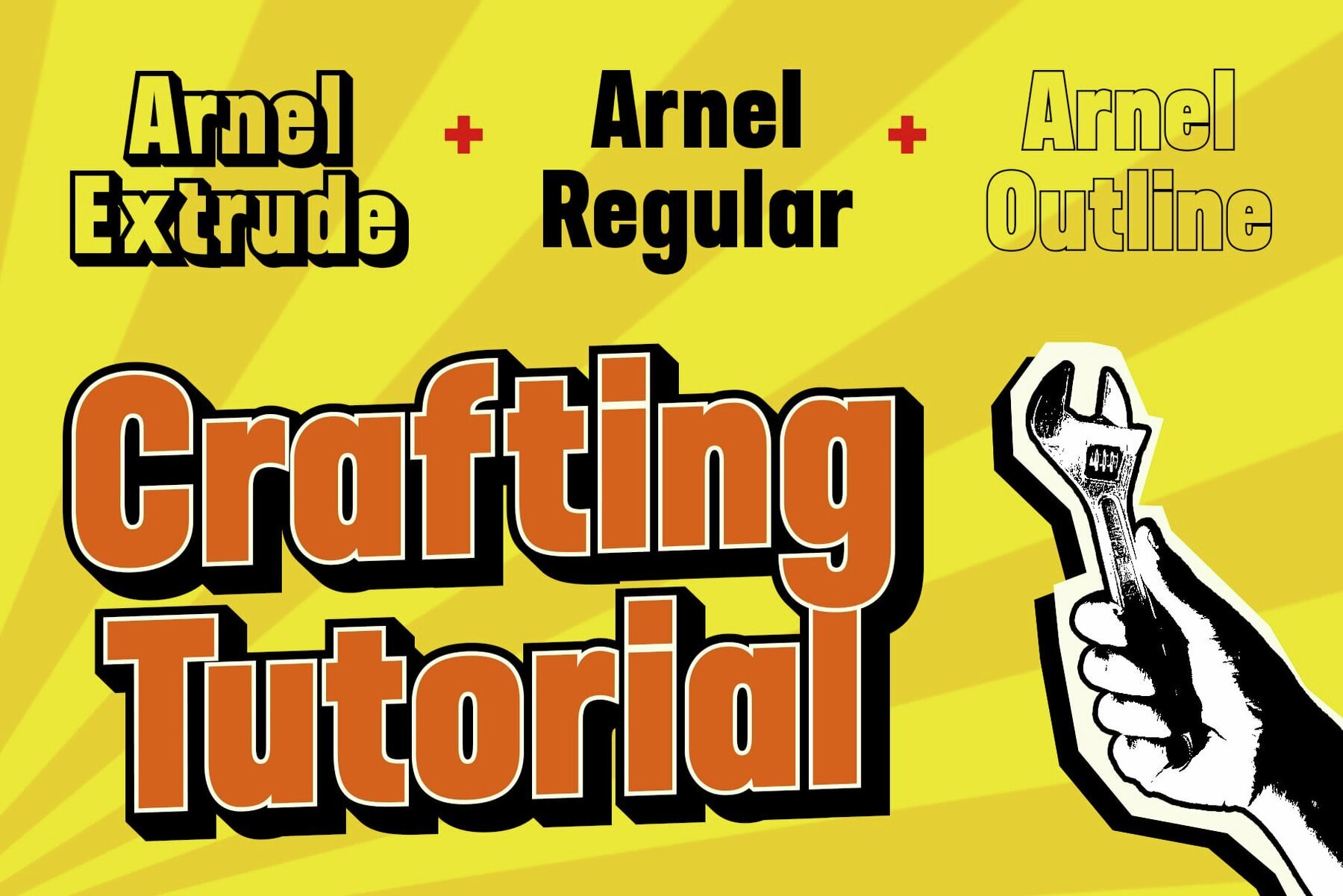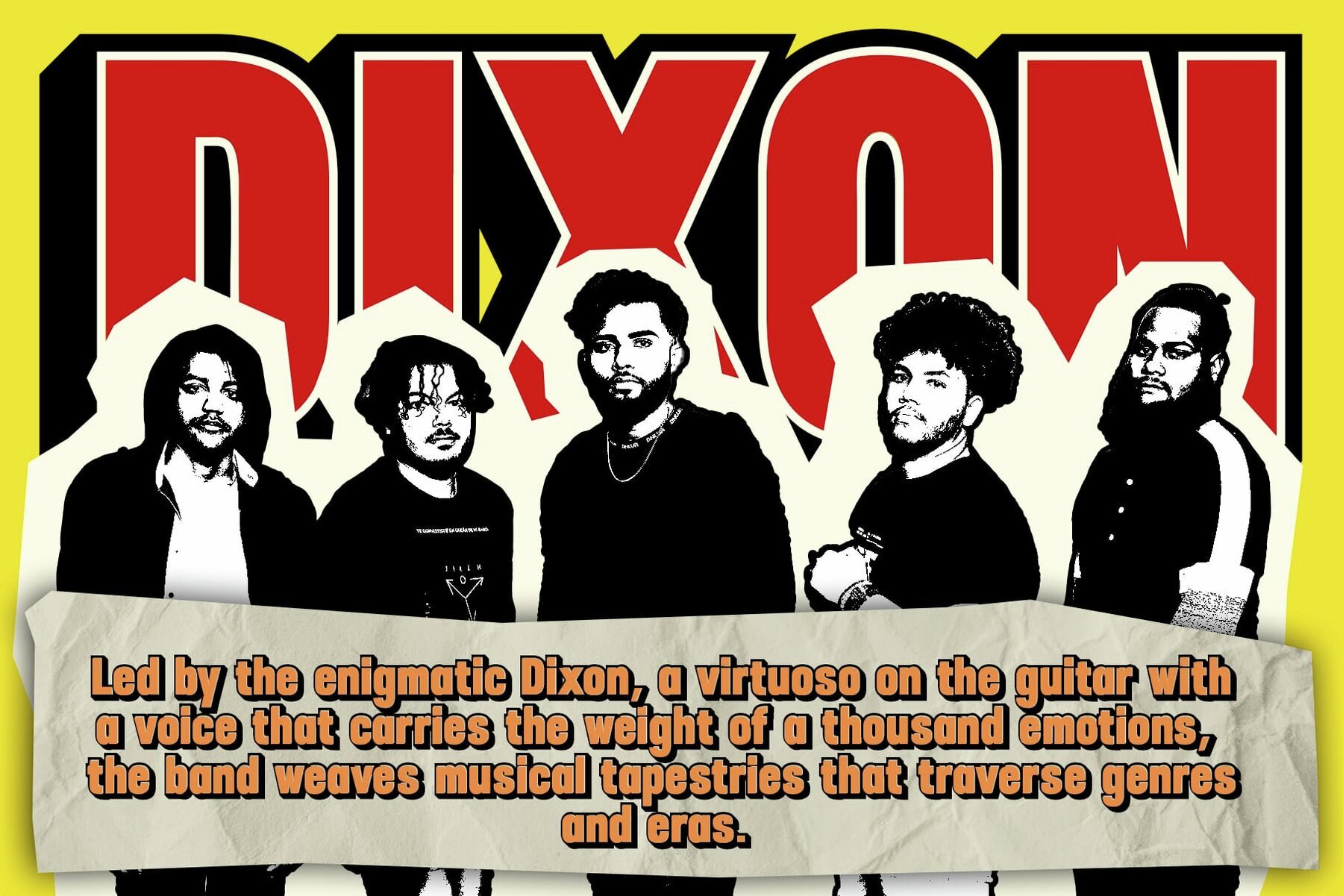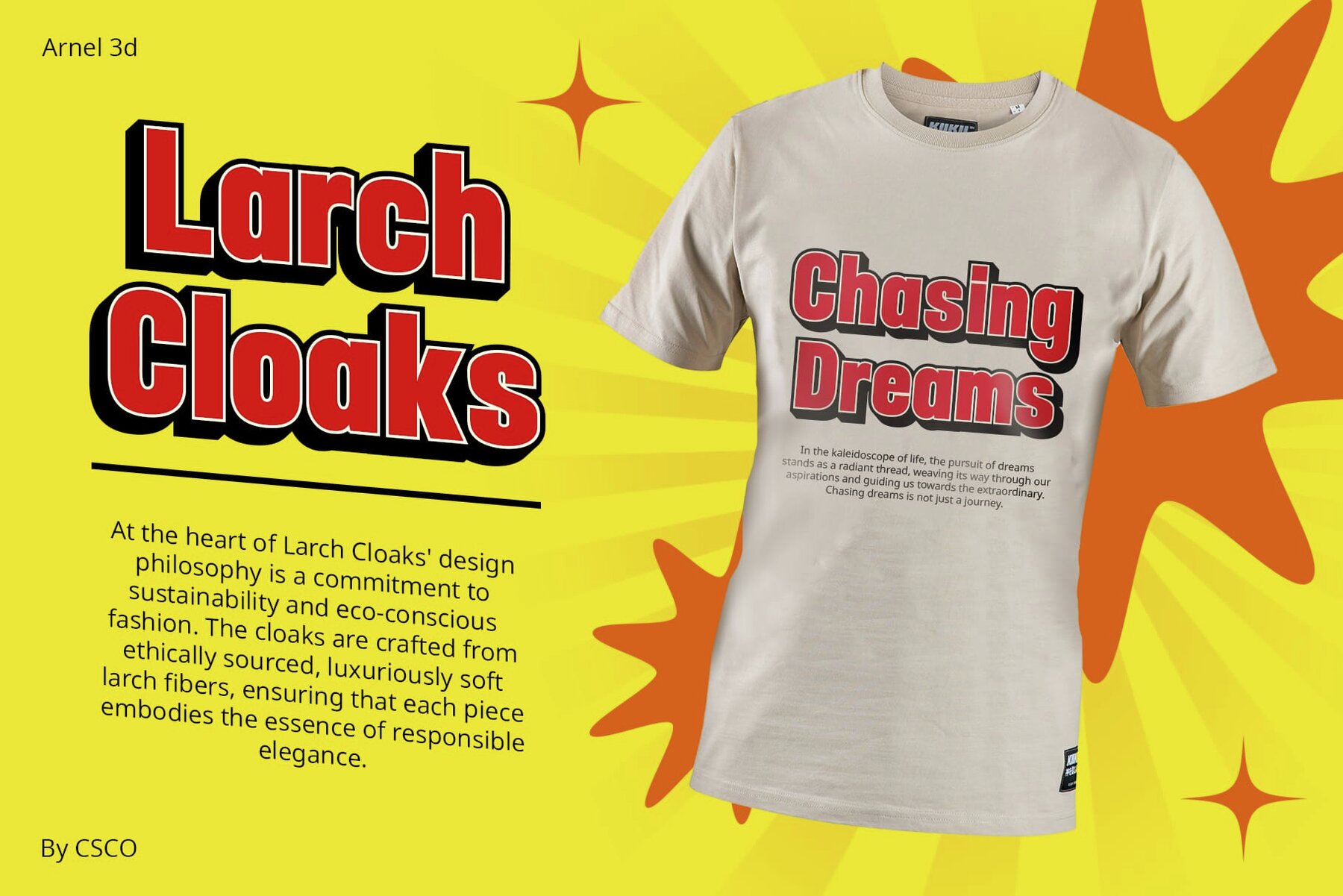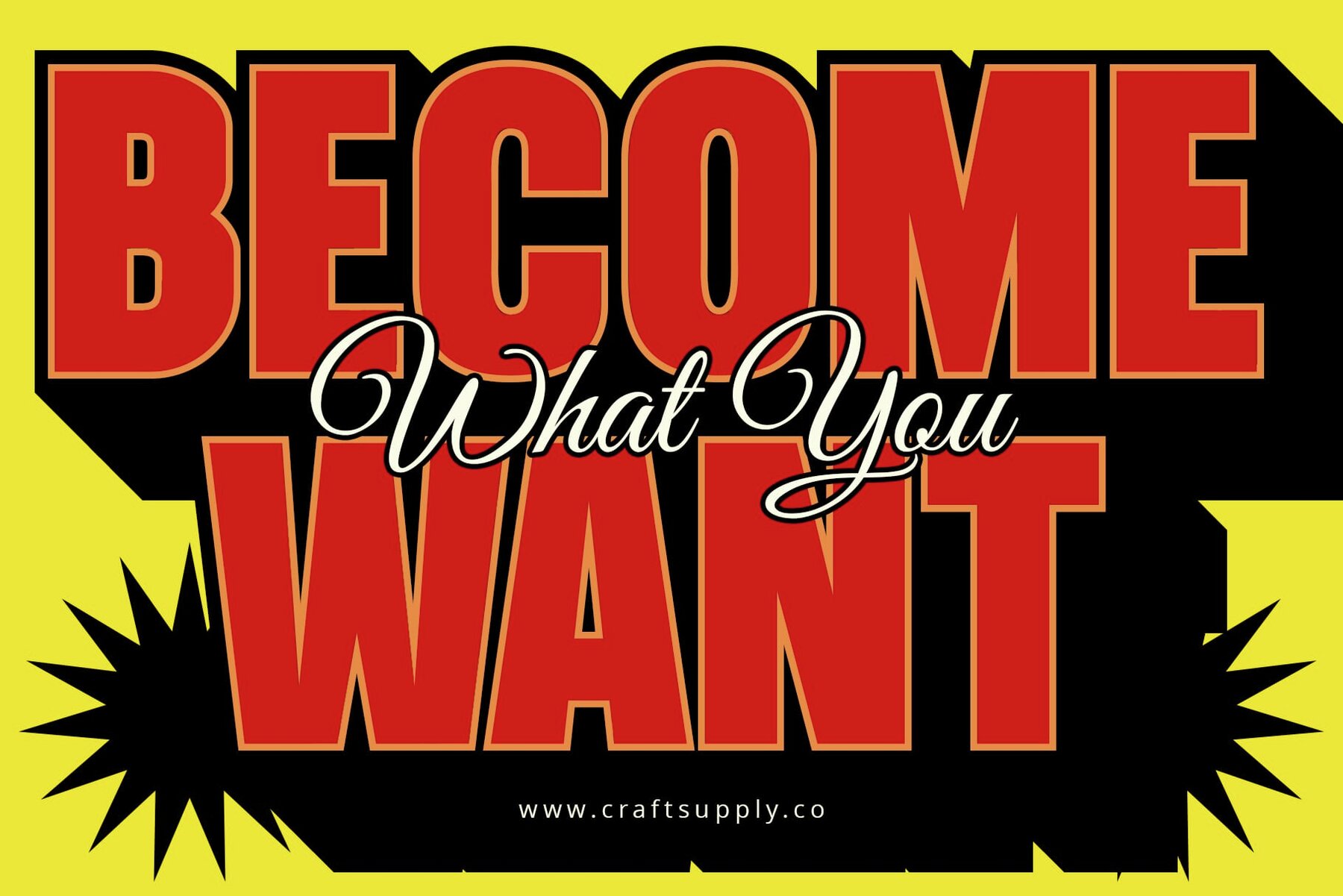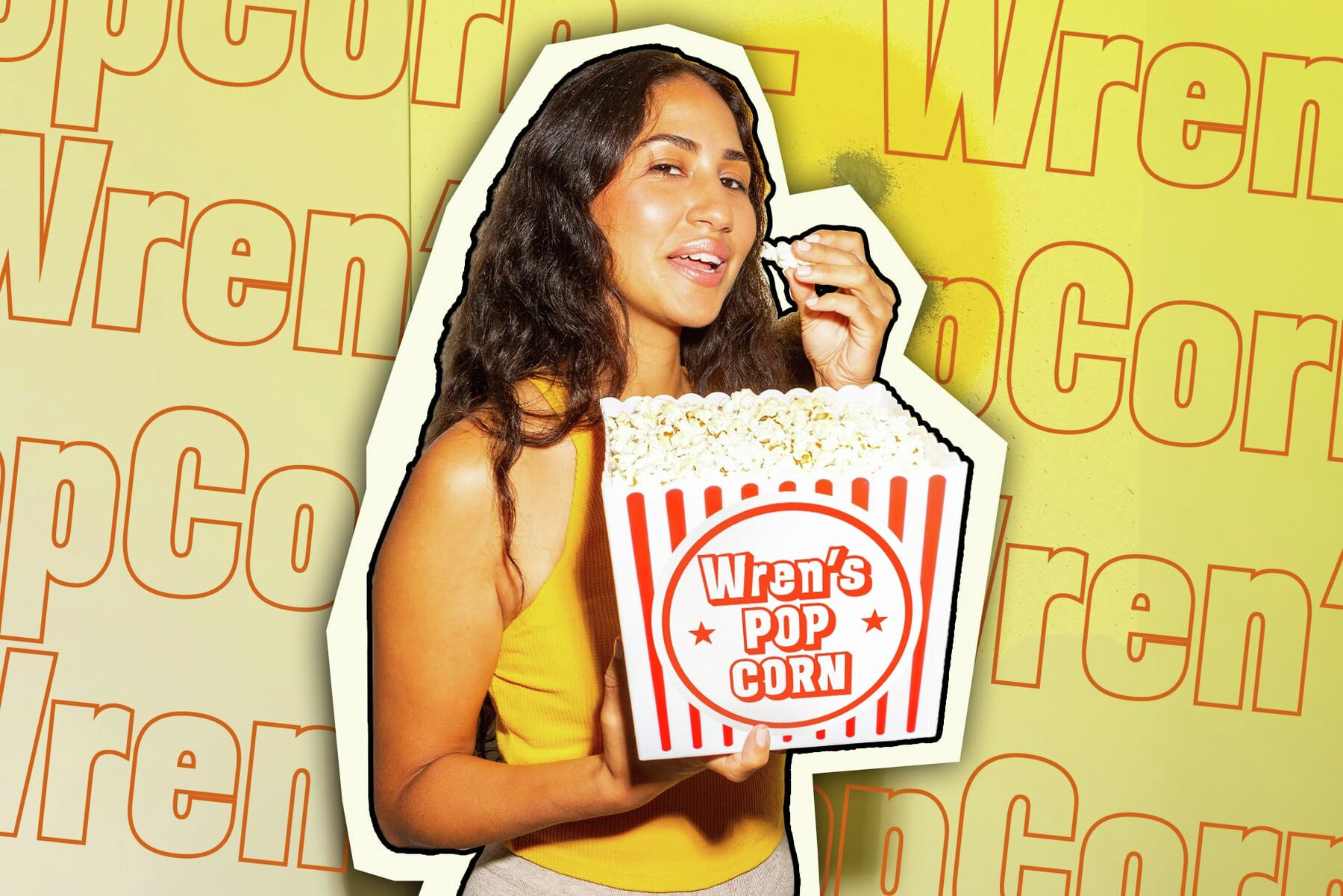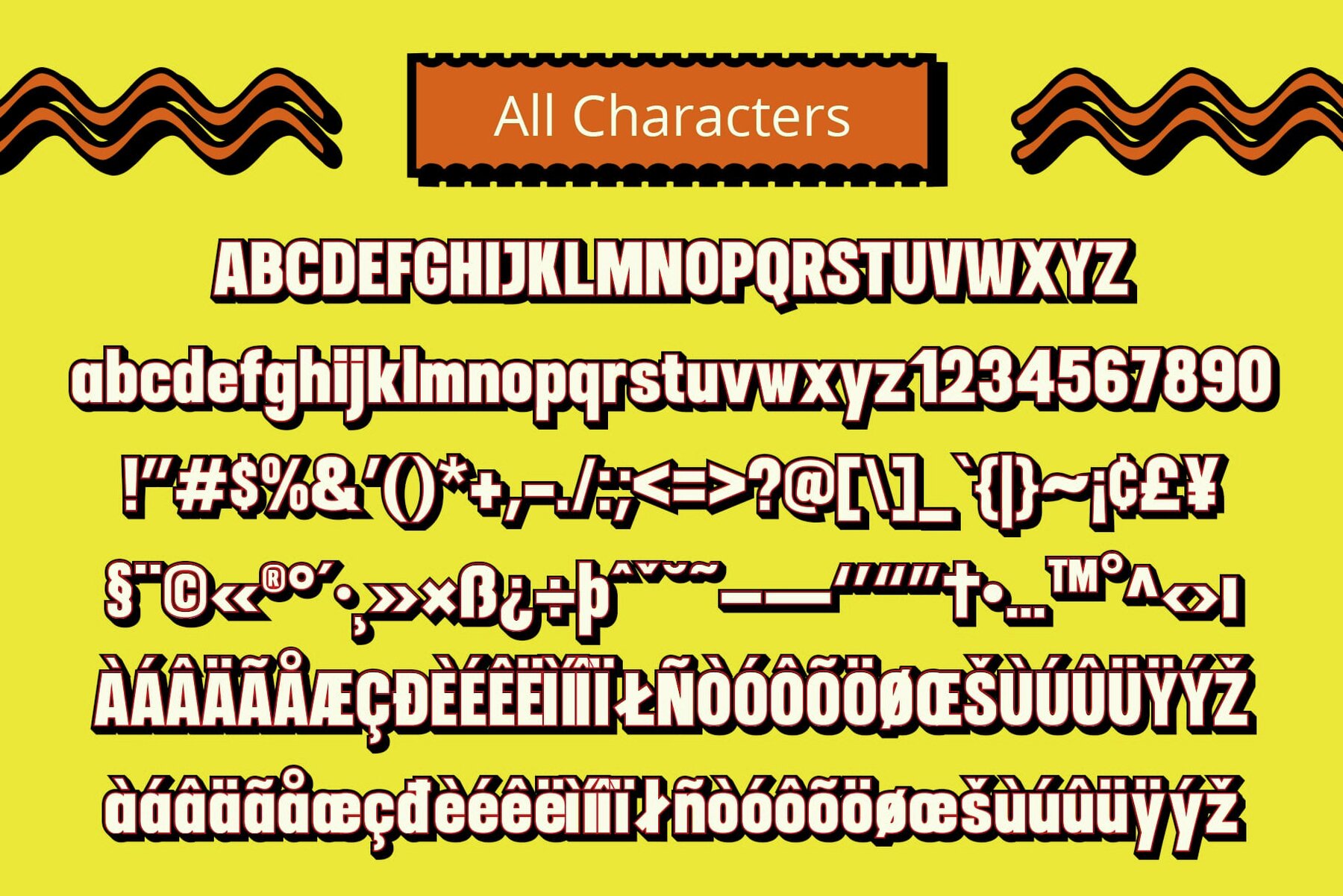
Arnel 3D Font
Experience the power of Arnel 3D, a sans serif font where each character stands with bold impact, instantly capturing attention. Enter the fascinating world of Arnel 3D, where expertly integrated 3D effects play with light and shadow to create a visually rich experience. This font doesn’t just stand out; it communicates energy. The blend of boldness with 3D effects imbues it with a dynamic quality that captivates and engages. Explore the limitless design potential of Arnel 3D across various projects. Ideal for enhancing headlines, energizing posters, or elevating branding, this font provides a bold, captivating aesthetic. No specialized software is needed to use this typeface. If you have any inquiries or need assistance, please feel free to contact us. We appreciate your support in enhancing your creative projects! Best regards, Craft Supply Co.Arnel 3D: Bold Design Fused with Dimensionality
Illusions of Depth
Excitement and Dynamism
Versatile Design Potential